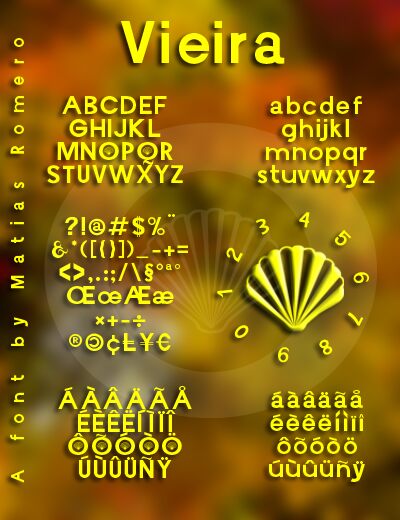
Vieira by Matias Romero is a free heavy geometric sans serif with an exceptionally solid build and a crisp, contemporary face. Its broad letters sit close together, mixing near-circular curves with blunt cuts and compact openings, yet the rounded forms keep the mass from looking crude.
Designers working in fashion, nightlife, or youth culture can use its forceful silhouette for event posters, apparel branding, and editorial campaigns with a confident urban edge. It also suits album covers and sports merchandise centered on oversized lettering.